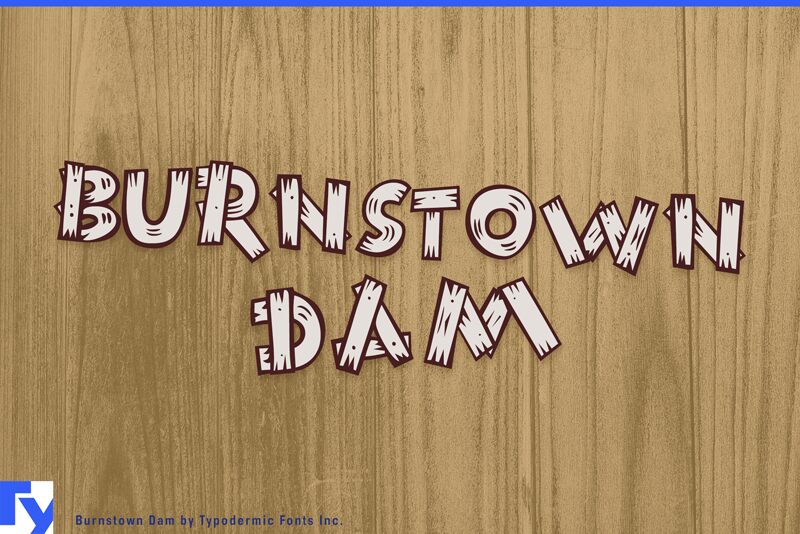
Burnstown Dam Back is a captivating display font from the creative minds at Typodermic Fonts. This bold, cartoon-inspired typeface exudes a rustic charm, evoking a sense of rustic authenticity and unbridled energy. With its small caps design, Burnstown Dam Back radiates a rugged, yet playful personality, seamlessly blending traditional and contemporary aesthetics.
Burnstown Dam Back's versatility shines through, making it a versatile choice for a wide range of design applications. From eye-catching labels and packaging to spirited event materials and beyond, this font's unique character can elevate any project with its unmistakable flair. Whether you're crafting a memorable moonshine label, planning a lively hillbilly wedding, or organizing a vibrant corn roast, Burnstown Dam Back is the perfect solution to bring your archetypal cowboy-inspired designs to life.
Burnstown Dam Back